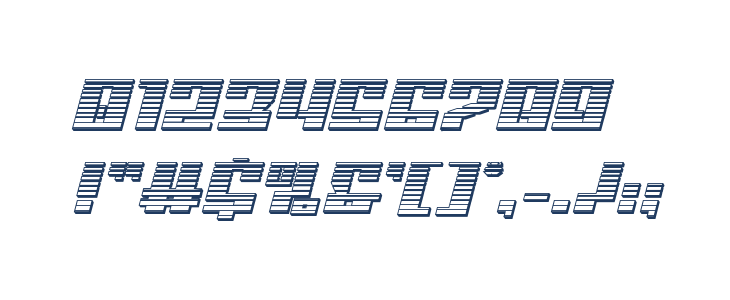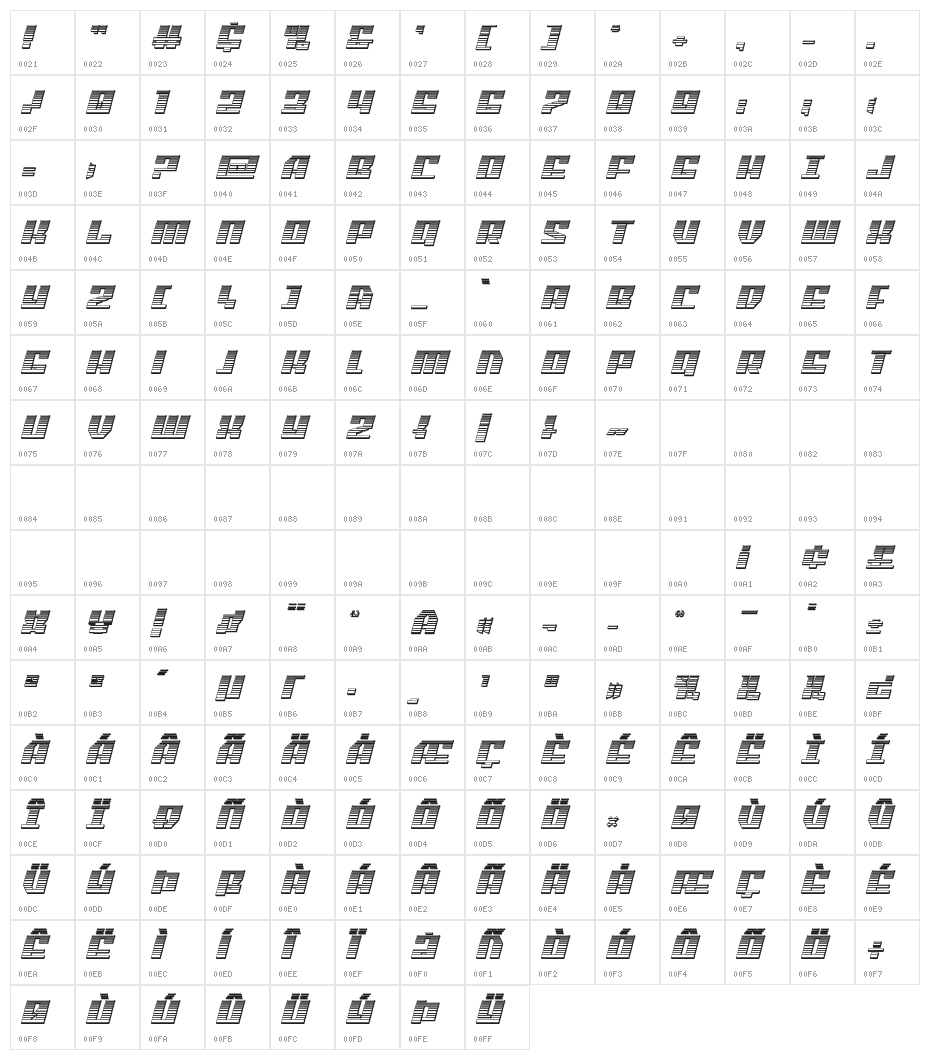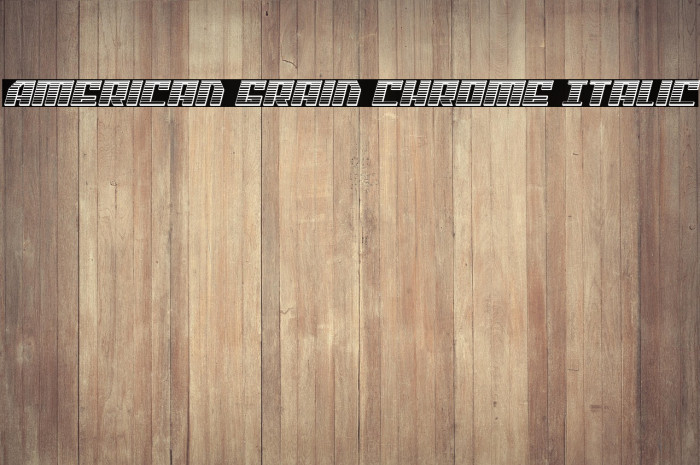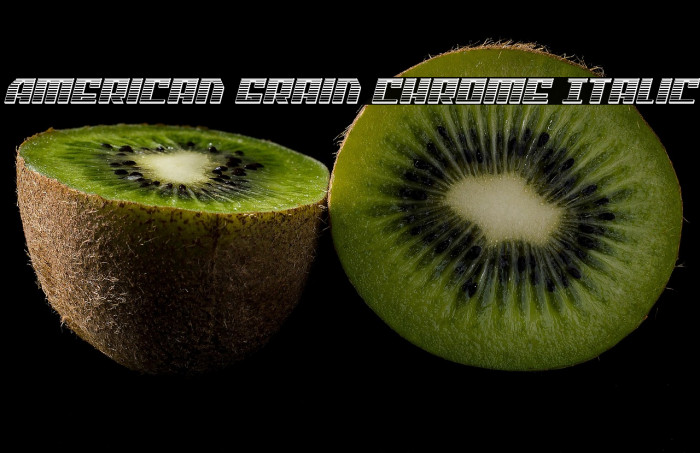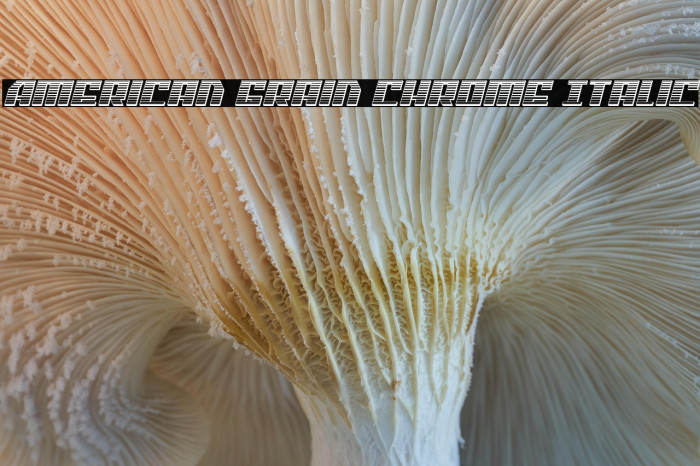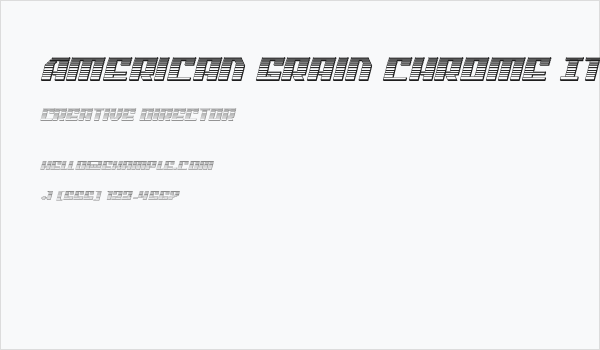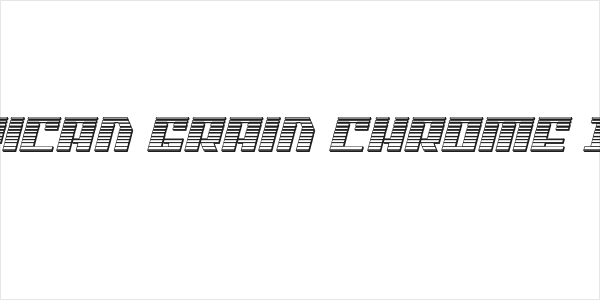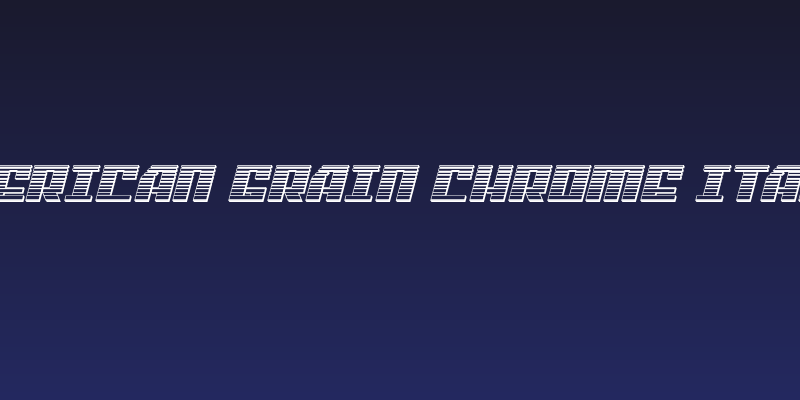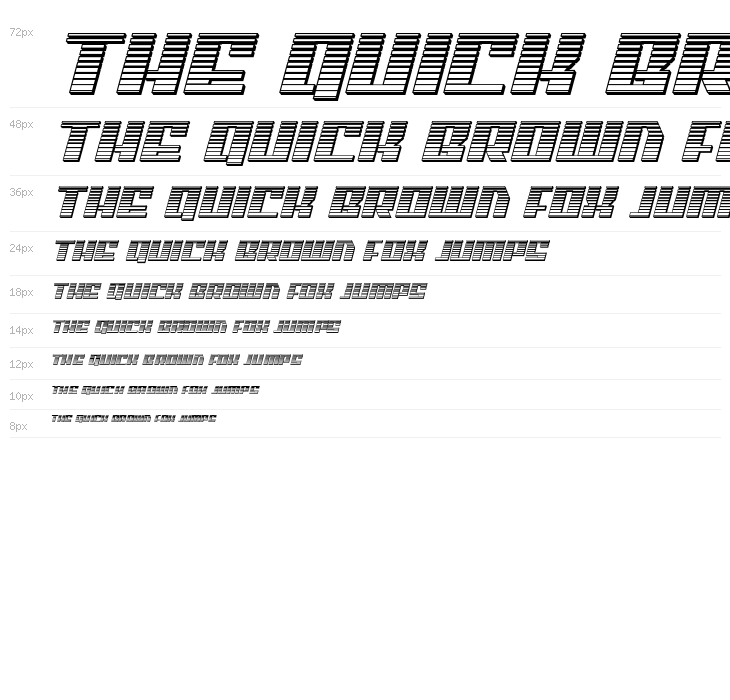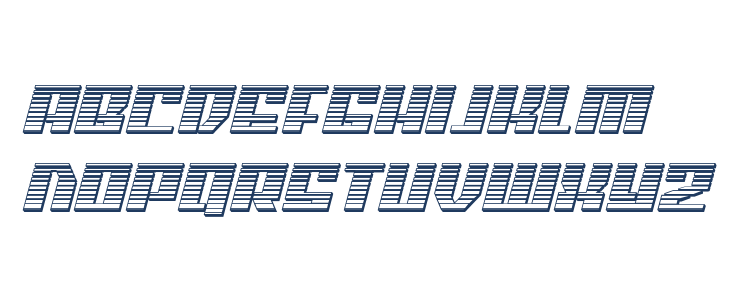
American Grain Chrome Italic Font
American Grain Chrome Italic Description
This font features a bold, italicized style with a distinct chrome-like appearance. The characters are constructed with horizontal lines that create a sense of depth and dimension. Each letter and number is designed with a futuristic and industrial aesthetic, making it stand out with its unique layered effect. The uppercase and lowercase letters maintain a consistent style, while the numbers and special characters complement the overall design. This font is ideal for projects that require a modern and edgy look, such as tech-related branding or futuristic themes.
| Overall Style | Modern, Futuristic, Industrial |
| Proposed Projects | Ideal for tech branding, futuristic themes, and industrial design projects. |